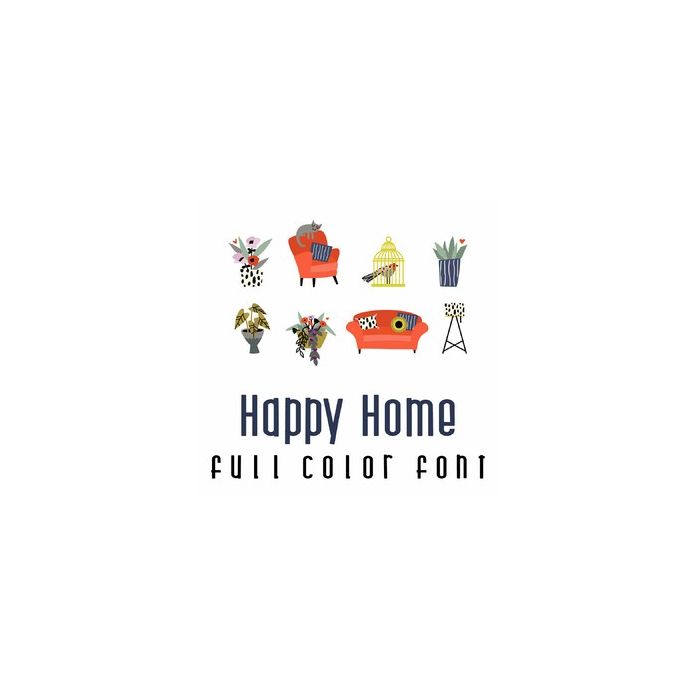
This adorable full-color doodlebat font features 26 fun decorative home items. Perfect for cards, crafts, gifts, decor, scrapbook pages, planner stickers, and more!